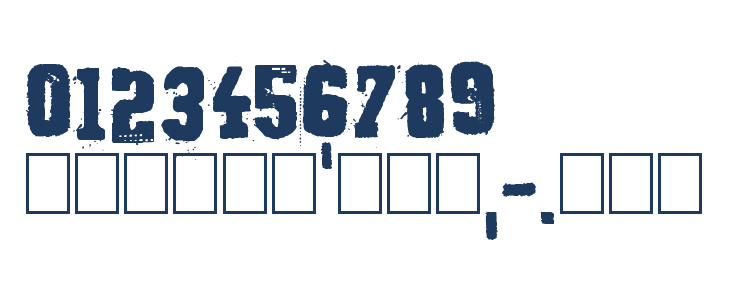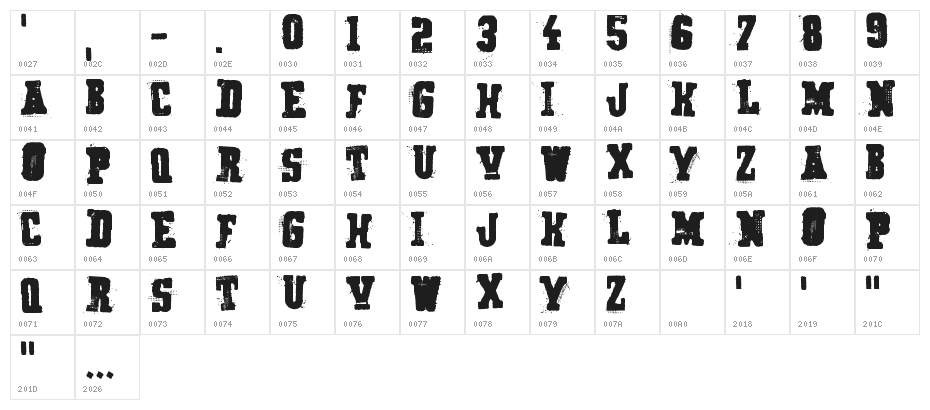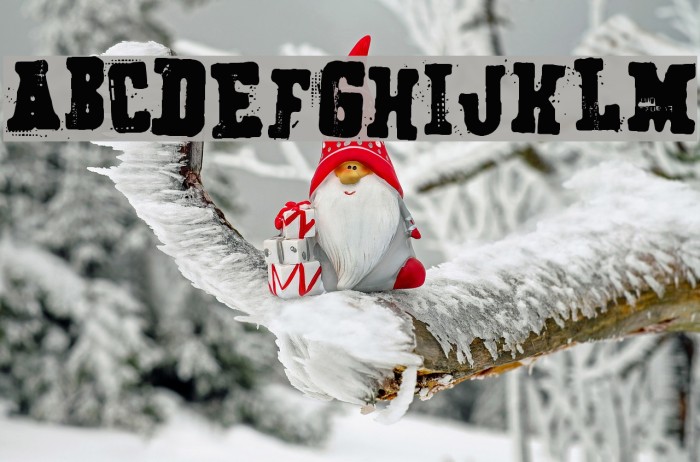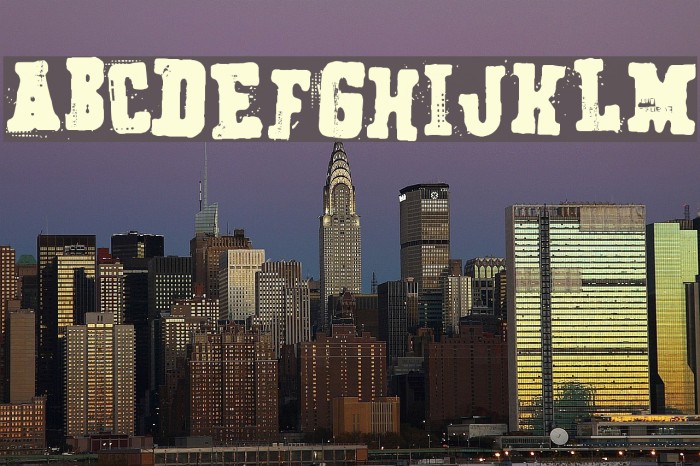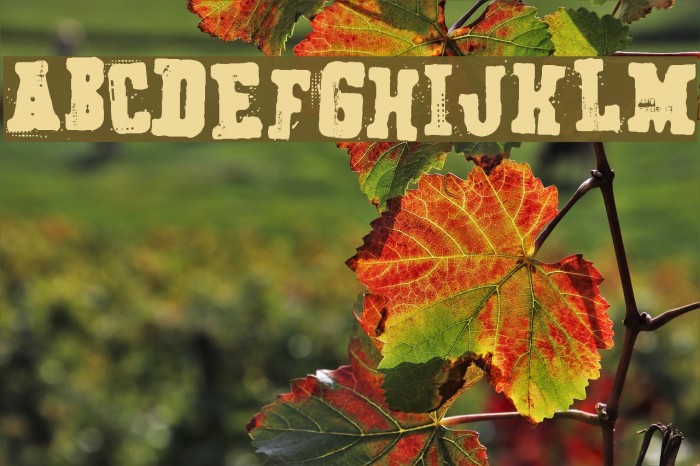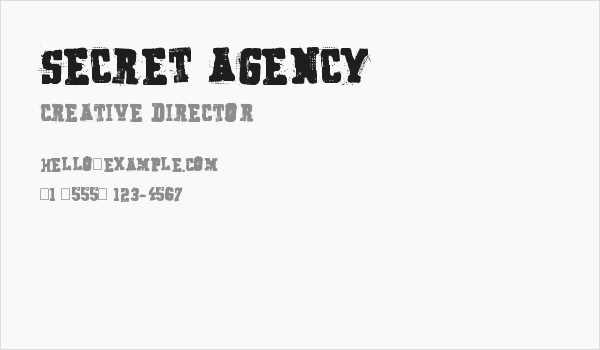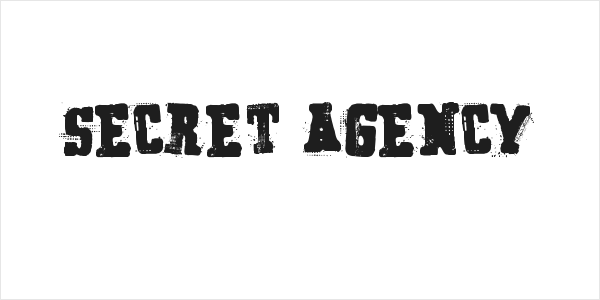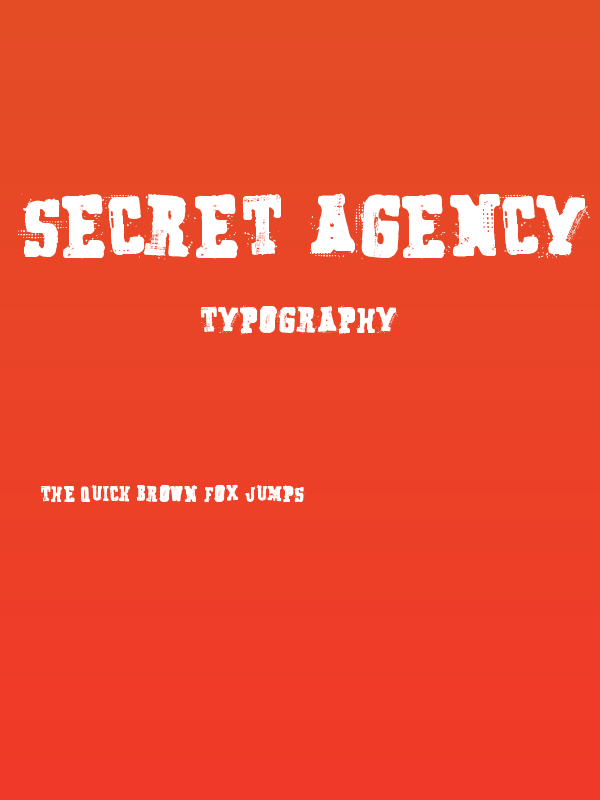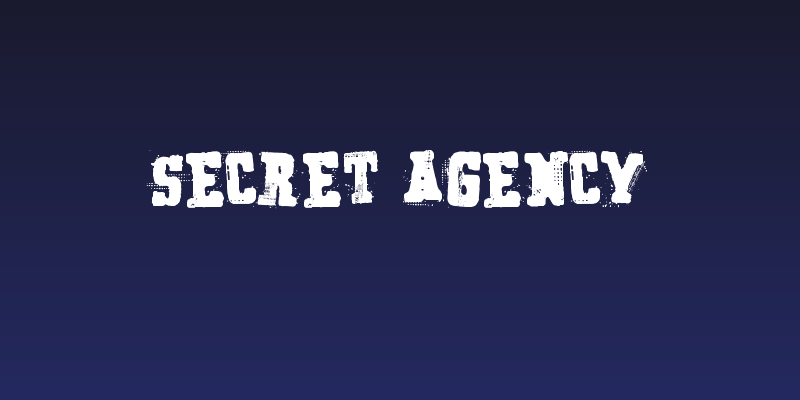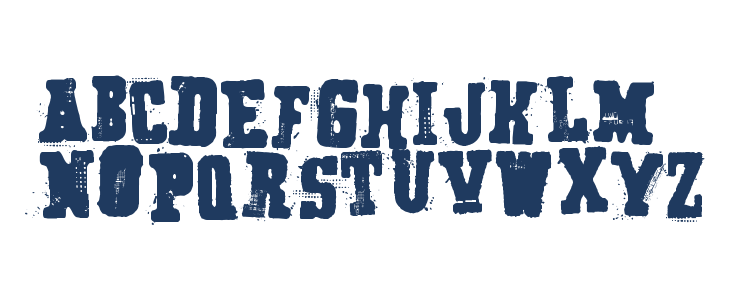
Secret Agency Font
Secret Agency Description
This font features a bold, distressed style with a rugged, textured appearance. The characters are heavily stylized, with uneven edges and a worn, vintage look that suggests a sense of mystery and intrigue. The uppercase letters are prominent and impactful, making them ideal for attention-grabbing headlines or titles. The numbers and special characters maintain the same distressed aesthetic, ensuring consistency across all text elements. This font's unique design makes it stand out, evoking a sense of secrecy and adventure.
| Proposed Projects | Ideal for movie posters, book covers, themed event invitations, and branding for adventure or mystery-themed products. |